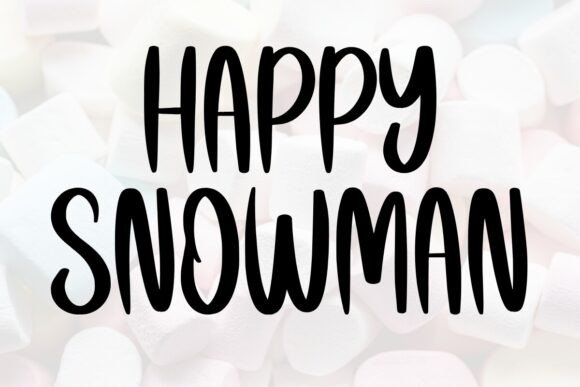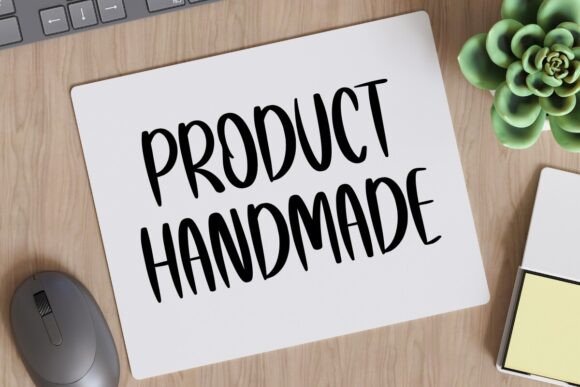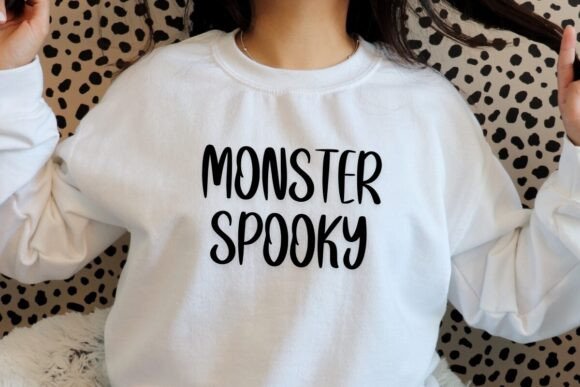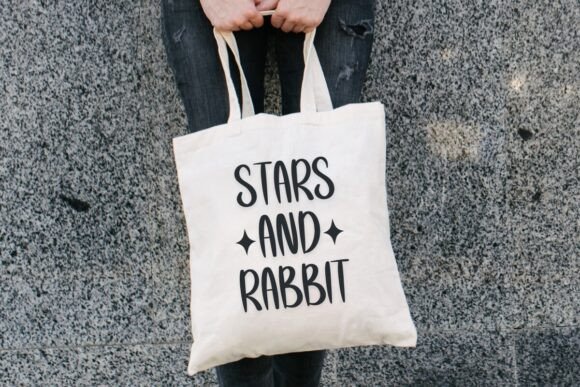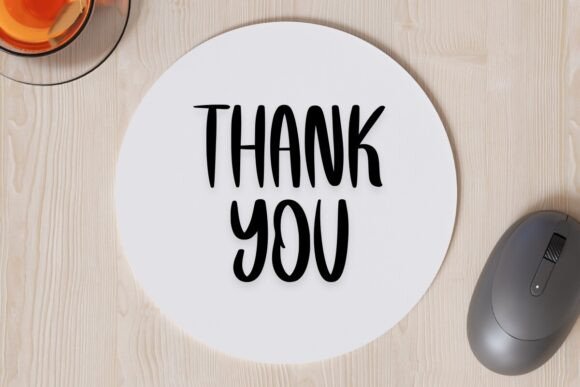
The Sweetest Addition to Your Design Toolbox
Have you ever stumbled upon the perfect font that makes your design pop? For me, it was the moment I discovered the Candy Grinch Font. I was working on a children’s book project and was struggling to find the right font to convey the playful tone I had in mind. As soon as I laid eyes on Candy Grinch, I knew I had found my match.
Candy Grinch is a modern and friendly sans-serif font that’s perfect for adding a touch of whimsy to your designs. Its rounded edges and playful curves make it an ideal choice for children’s books, invitations, and branding. What I love most about Candy Grinch is its ability to radiate a sweet charm that captures attention without being too overwhelming.
Candy Grinch Font Key Features
- Font Family: A sans-serif font with a playful, modern twist.
- Character Set: Includes a wide range of characters, including uppercase and lowercase letters, numbers, and punctuation.
- Unique Characteristics: Features a distinctive, candy-inspired aesthetic with bold lines and rounded edges.
Candy Grinch Font Review
Candy Grinch Font is a delightful, festive font that’s perfect for adding a touch of whimsy to your designs. ✨ The font’s irregular, handwritten style is reminiscent of a child’s playful handwriting, making it ideal for creating a sense of innocence and charm. ✨ The font’s bold lines and vibrant colors also give it a fun, energetic feel that’s sure to grab attention.
One of the things I love about Candy Grinch Font is its versatility. ✨ It’s perfect for creating posters, flyers, and other promotional materials for kids’ parties, events, and products. ✨ The font also pairs well with other playful, cursive fonts, making it a great addition to any design project.
- ⚠️ The font may be too playful or childish for some design projects, such as corporate branding or formal documents.
- ⚠️ The font’s irregular style may not be suitable for designs that require precision or a more formal look.
- ⚠️ The font may not be as legible at smaller font sizes, which could impact readability.
Overall, I think Candy Grinch Font is a fun, creative font that’s perfect for adding a touch of whimsy to your designs. While it may have some limitations, its unique style and versatility make it a great addition to any designer’s toolkit.
The Candy Grinch Font is ideal for creating festive and playful designs, such as:
- Christmas or holiday-themed invitations and cards.
- Children’s birthday party decorations and materials.
- Food and beverage branding, such as candy or dessert shops.
Remember to use the font in moderation and in context to avoid overwhelming the design.
Alternatives to Candy Grinch Font
Great Vibes is a modern script font that offers a playful and whimsical feel. It’s ideal for use in designs that require a sense of fun and creativity. Compared to Candy Grinch Font, Great Vibes is more elegant and sophisticated, making it a great choice for designs that need a touch of sophistication without losing the playful feel.
Cinzel Font
Cinzel is a calligraphy-inspired font that offers a beautiful, handwritten feel. It’s perfect for use in designs that require a sense of luxury and elegance. Compared to Candy Grinch Font, Cinzel is more refined and sophisticated, making it a great choice for designs that need a touch of high-end style.
Lobster is a fun, cursive font that offers a playful and energetic feel. It’s ideal for use in designs that require a sense of excitement and enthusiasm. Compared to Candy Grinch Font, Lobster is more casual and laid-back, making it a great choice for designs that need a relaxed, approachable feel.
Aleo Font
Aleo is a modern sans-serif font that offers a clean and elegant feel. It’s perfect for use in designs that require a sense of simplicity and sophistication. Compared to Candy Grinch Font, Aleo is more minimalist and understated, making it a great choice for designs that need a touch of modern style without being too flashy.